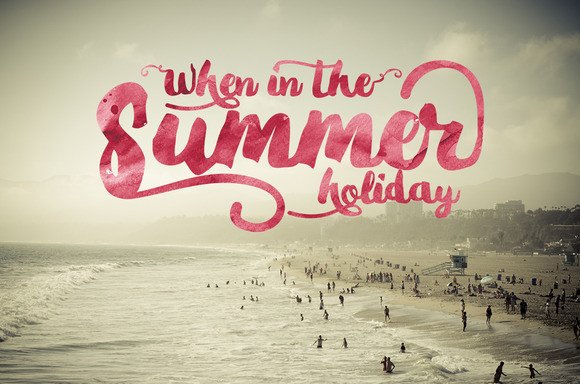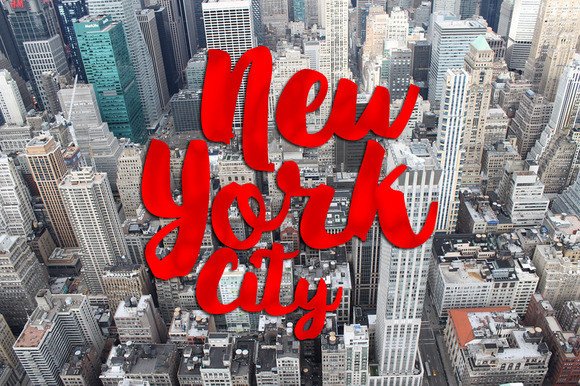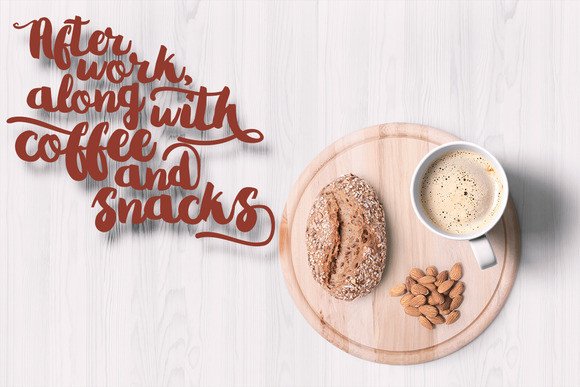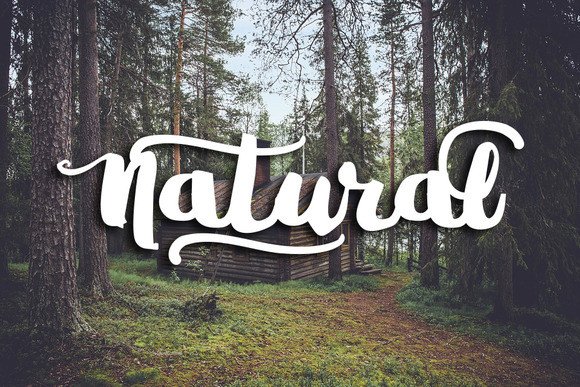
Gradies Font
About Gradies Font
Gradies Brush is a friendly and unique font; this brush script can add some uniqueness and handlettered feel to your special projects.